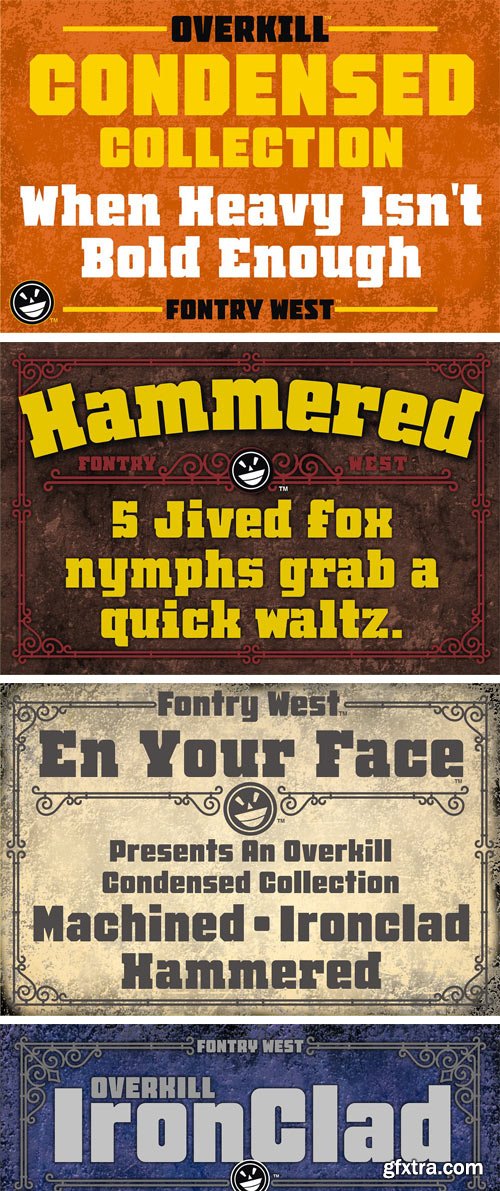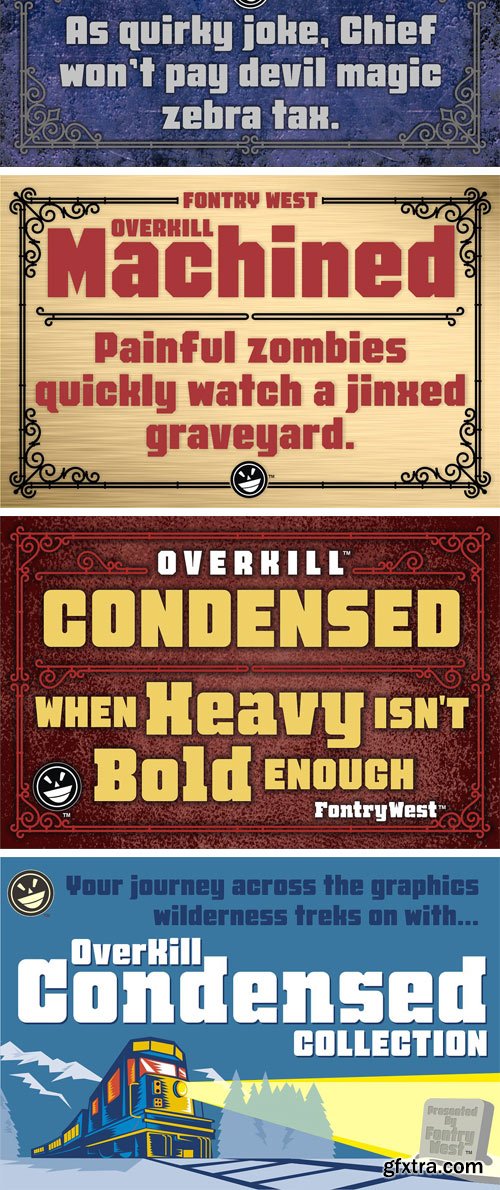
FTY Overkill Condensed™ Font Family A collection of 3 fonts with language support and Opentype features. For logos, signs, posters, headlines, titles and display type of all kinds, when bold, black or heavy are not enough – OVERKILL™! A condensed type collection, Machined™, Hammered™ or Ironclad™ pacify all resistance. The Overkill Condensed™ family supports multiple languages and OpenType alternates.